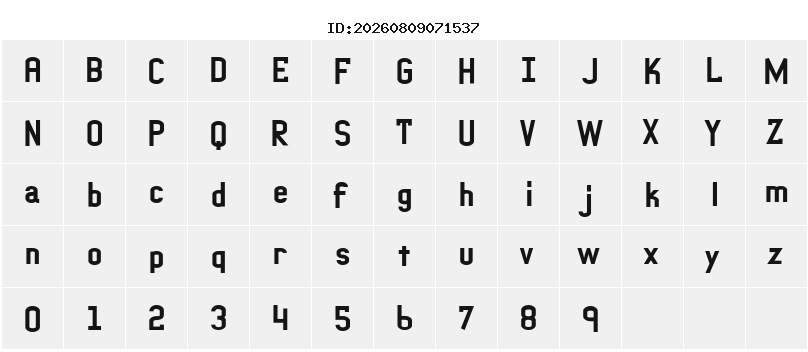
• Font Name: PeterPierreXBold
• Full Font Name: PeterPierreXBold
• PostScript Name: PeterPierreXBold
About PeterPierreXBold.ttf
PeterPierreXBold.ttf is a modern, elegant sans-serif font designed for ultimate readability and visual harmony. Perfect for branding, headlines, web design, and print materials.